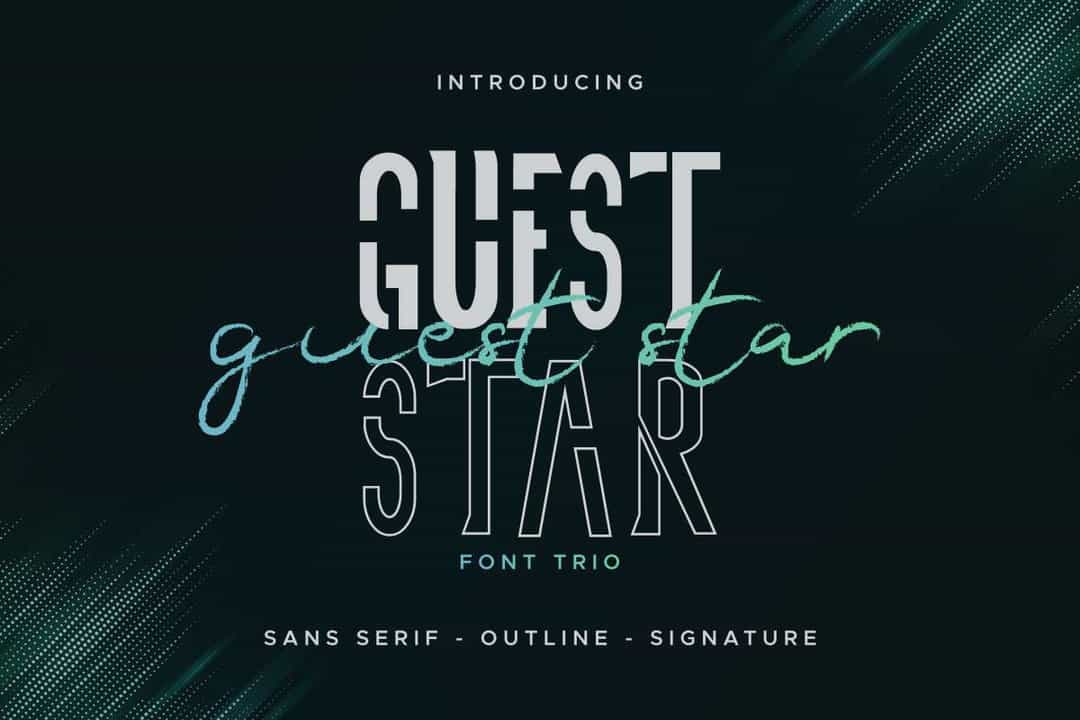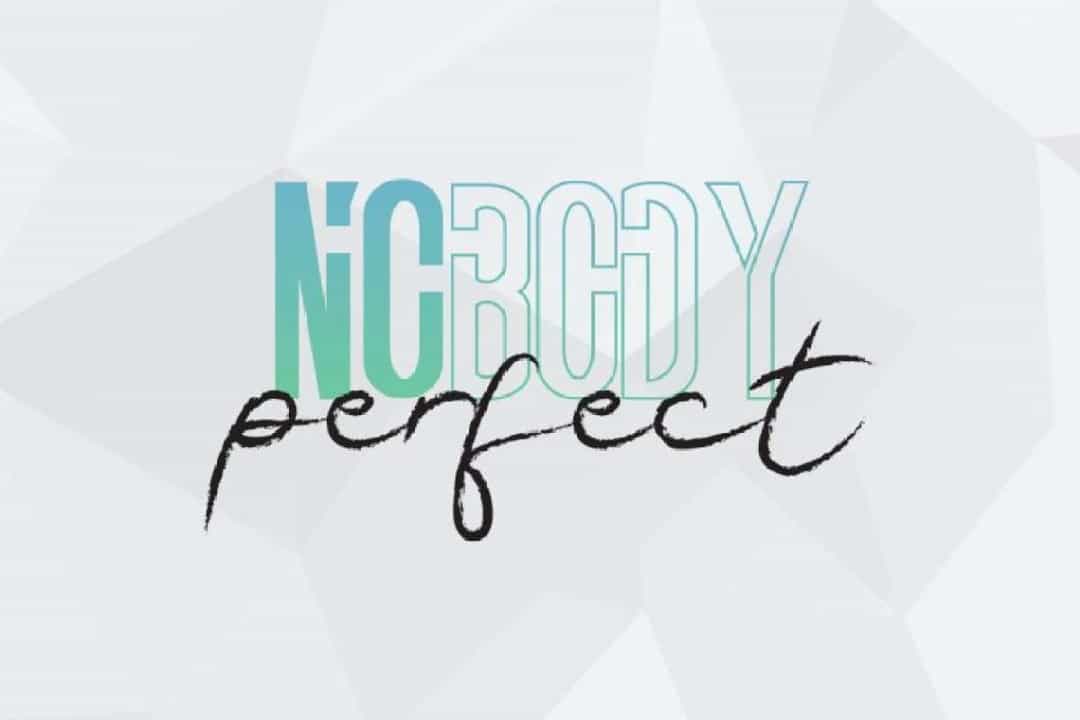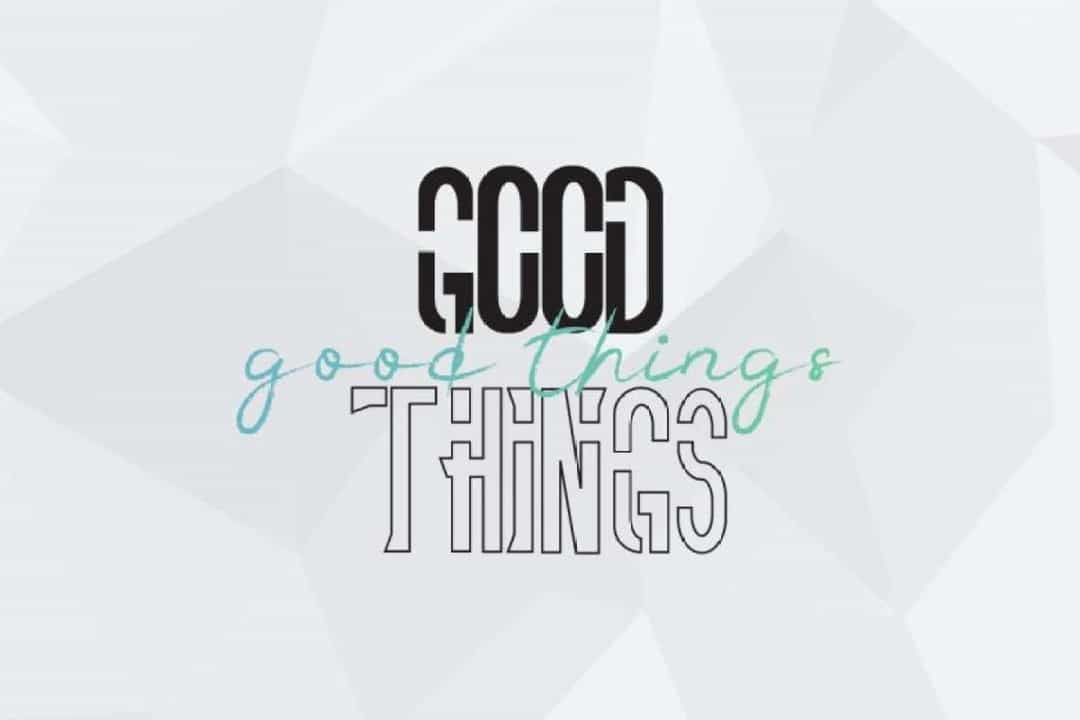
Discover Guest Star Font Duo, part of the Sans Serif Brush collection—a versatile and unique font perfect for adding a personal touch to your projects. Download it for free and enjoy crafting designs with style, from invitations to social media posts. This font is available exclusively for personal use, giving you the freedom to create without limits. Unlock your creativity with Guest Star Font Duo today!
Guest Star is an edgy font with brush-style and display style. The font is stunning with a gorgeous characters set that is perfectly managed with kerning and spacing that is well-placed. The design is elegant, classic, stylish modern, sophisticated and traditional brushes calligraphic design. There is no place or anywhere else the style of font as Guest Star Font Duo.